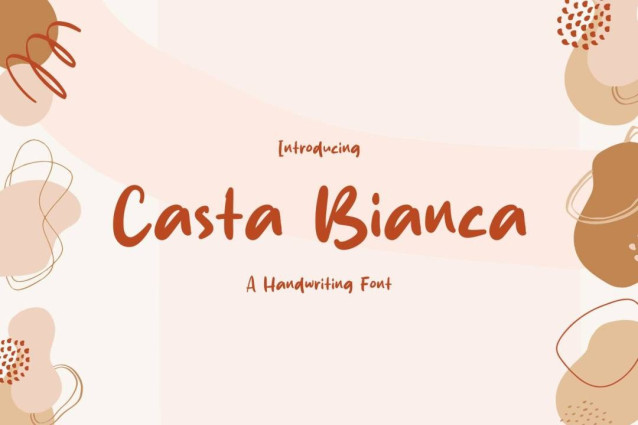
Casta Bianca Font
Casta Bianca Font is a simple and modern display font suitable for quotes, logos, headings, titles, and many more. Use it on any of your creative projects, and your designs will become outstanding!